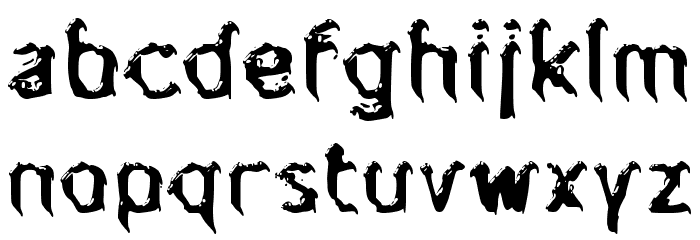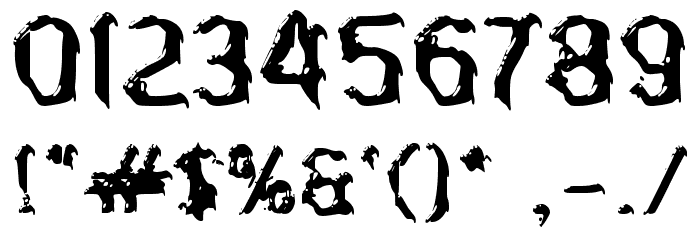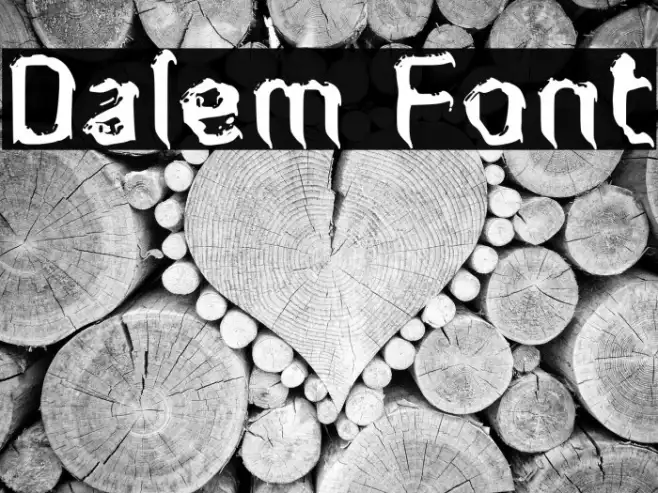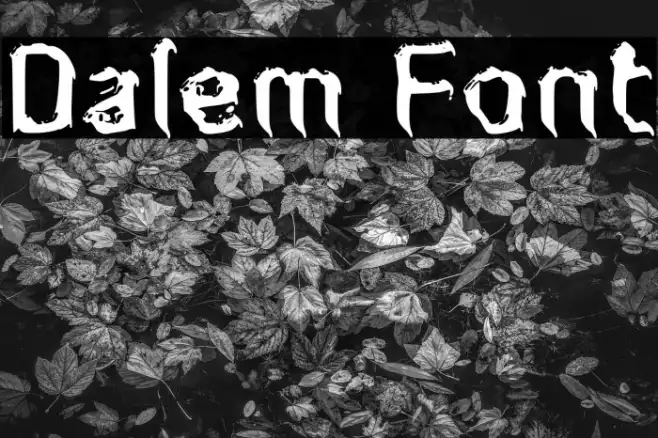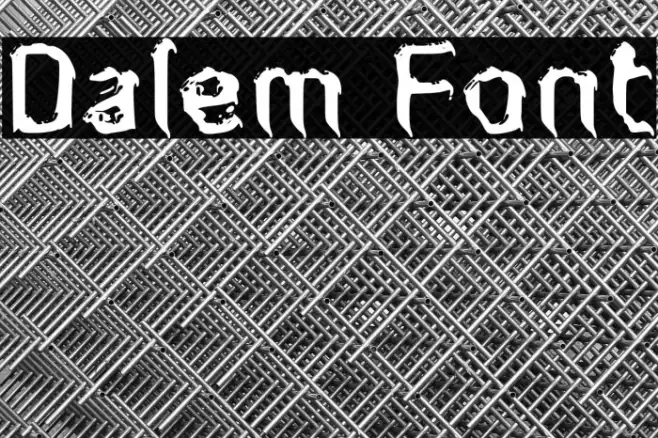
Dalem Font
This font features a rugged, distressed appearance with an organic, hand-drawn quality. The characters are bold and have an uneven texture, giving them a raw and edgy look. The uppercase and lowercase letters maintain a consistent style, with jagged edges and irregular shapes that suggest a sense of movement and energy. The numbers and special characters follow the same aesthetic, making the font cohesive and visually striking. This style is reminiscent of grunge or street art, adding a rebellious and artistic flair to any design.
A bold, distressed font with a rugged, hand-drawn appearance.
- Proposed Projects: Ideal for album covers, posters, streetwear branding, or any project requiring an edgy, artistic touch.
- Overall Style: Grunge, Artistic